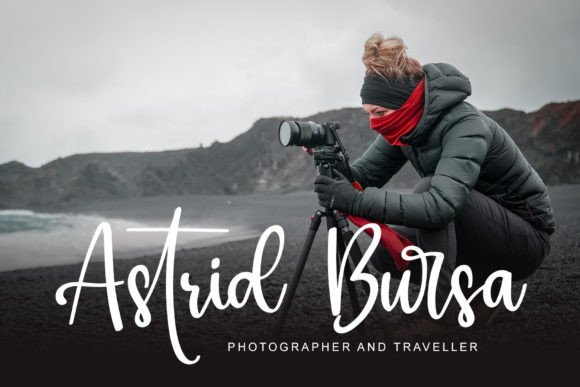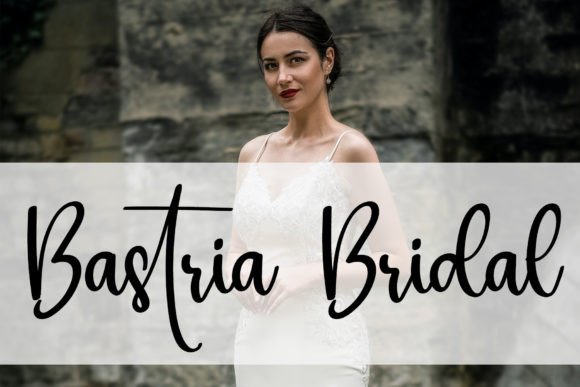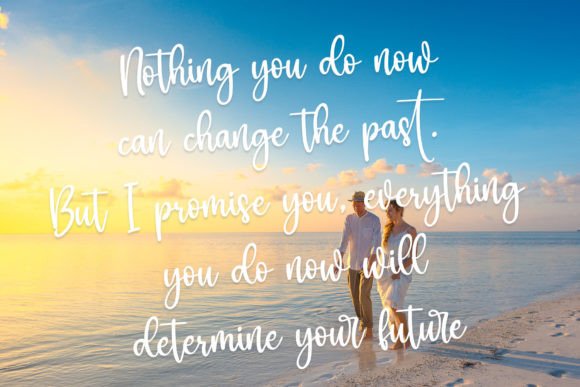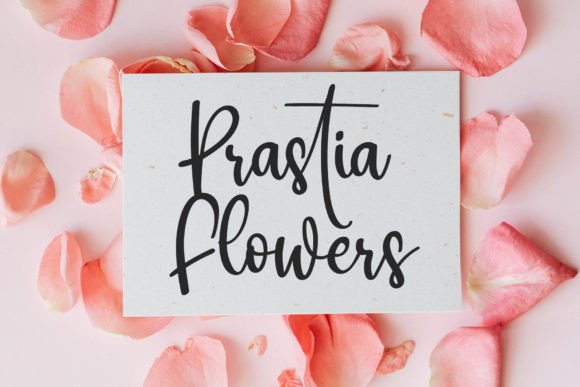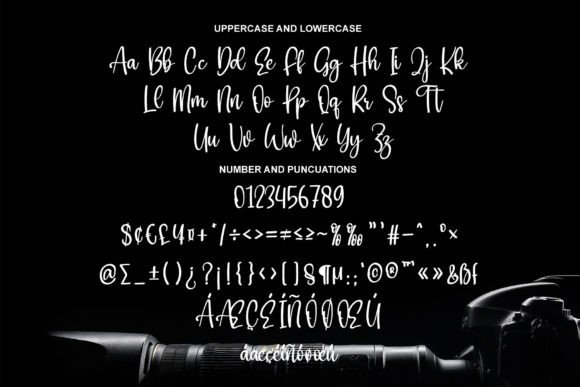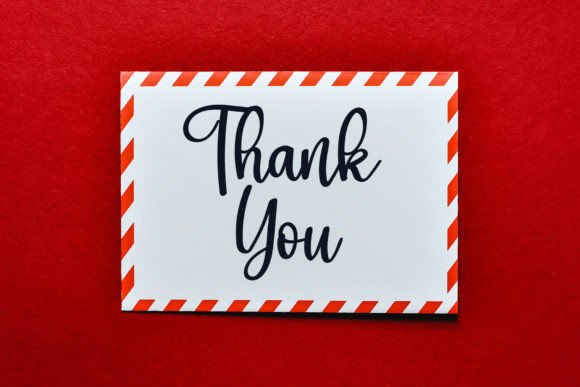
Introduction to Hursting Font
Have you ever been in the middle of a creative project, struggling to find the perfect font to bring your vision to life? You’ve browsed through countless design resources, only to settle for something that’s ‘good enough.’ But what if you could find a font that not only elevates your project but also adds a touch of timeless elegance? Enter the Hursting Font, a stylish handwritten font that’s sure to take your creative project to the next level.
With its impeccable form and contemporary atmosphere, the Hursting Font is a valuable asset for designers looking to add a touch of sophistication to their work. Whether you’re working on a logo, a brochure, or a website, this high-quality font is sure to impress. Plus, with its transparent background, you can easily layer it over other design elements to create a unique look that’s all your own.
Key Features of Hursting Font
- High-quality design resource ideal for creative projects, offering a unique and stylish aesthetic.
- Designed to be scalable, with a resolution of up to 72 dpi, making it suitable for digital and print applications.
- Unique characteristics include intricate details and a distinctive texture, adding depth and visual interest to designs.
- Perfect for use in a variety of creative projects, from branding and advertising to digital art and graphic design.
Honest Review: Hursting Font
As a designer, I’m always on the lookout for high-quality design resources that can elevate my creative projects. Recently, I stumbled upon the Hursting Font, and I’m excited to share my thoughts on it.
- ✨ The font’s unique, modern design makes it perfect for contemporary projects.
- ✨ The transparent background allows for easy layering and customization.
However, I do have some limitations to mention:
- ⚠️ The font may not be suitable for projects that require a more traditional or classic look.
- ⚠️ Some users may find the font’s design a bit too bold or overwhelming.
Overall, I’m impressed with the Hursting Font. It’s a great addition to any designer’s toolkit, especially for creative projects that require a modern, edgy look. Just be mindful of its limitations, and you’ll be able to unlock its full potential.
Hursting Font
Hursting Font is a high-quality design resource that offers a unique and creative touch to any project. Its transparent background makes it perfect for use in various design applications.
Tips for Getting the Most Out of Hursting Font
To get the most out of Hursting Font, experiment with different font sizes, colors, and combinations to create unique and eye-catching designs. You can also use it in conjunction with other design elements to create a cohesive and professional look.
Hursting Font is perfect for use in creative projects such as logos, graphics, posters, and social media graphics. It’s also ideal for use in presentations, documents, and other business materials where a high-quality and unique font is desired.